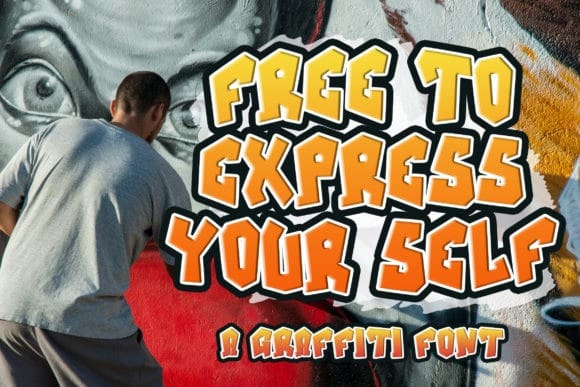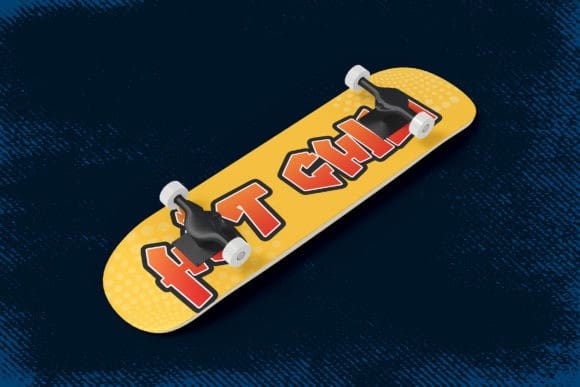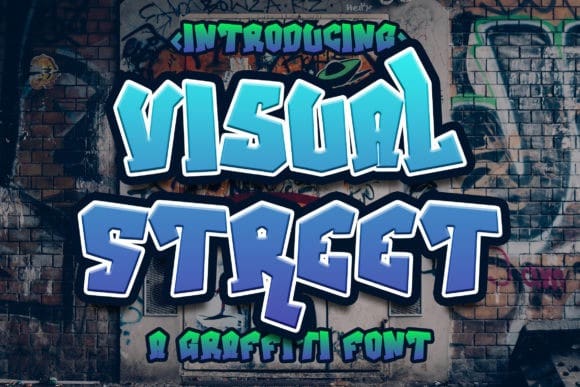
Visual Street Font
Visual Street Font is a graffiti styled display font. It is great for delivering any message with confidence, authenticity and charm. This font is PUA encoded which means you can access all glyphs and swashes with ease!